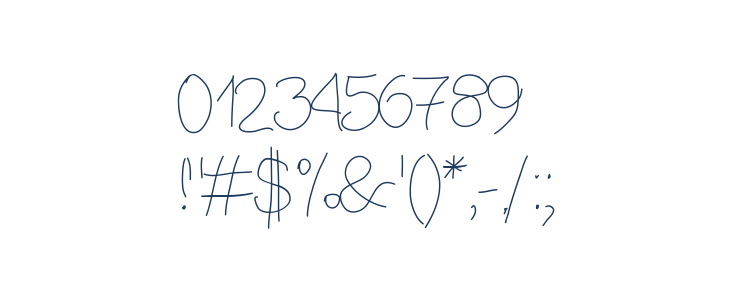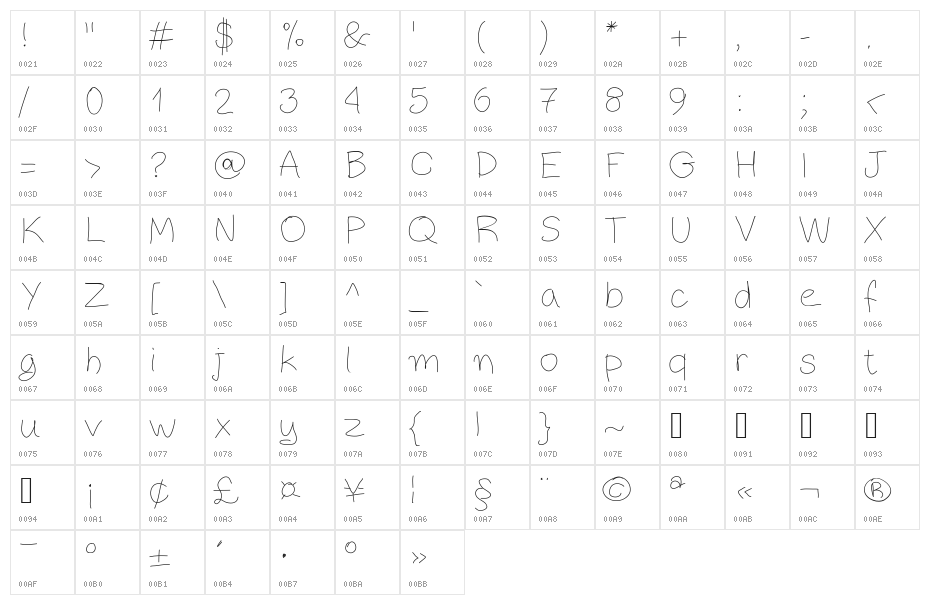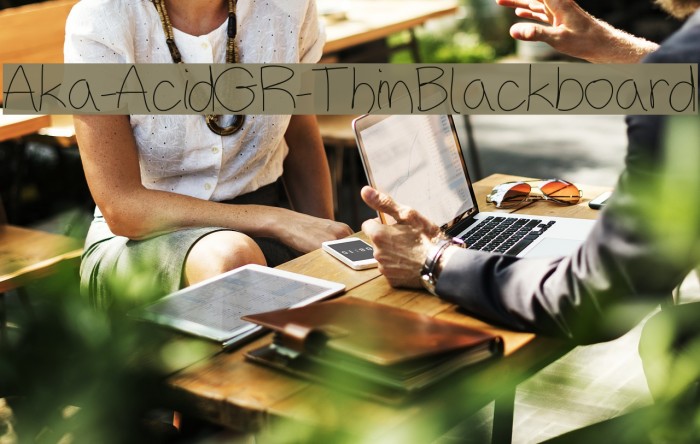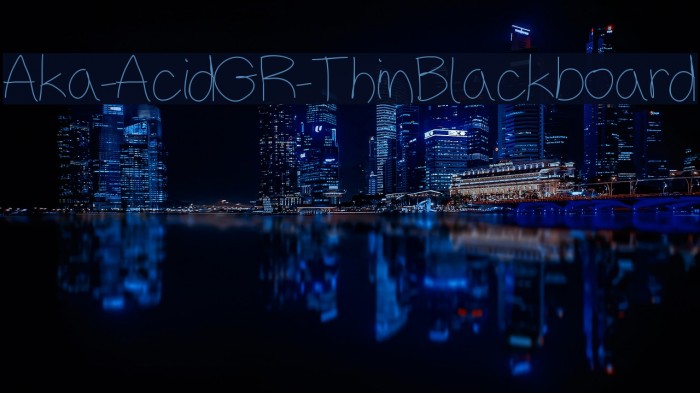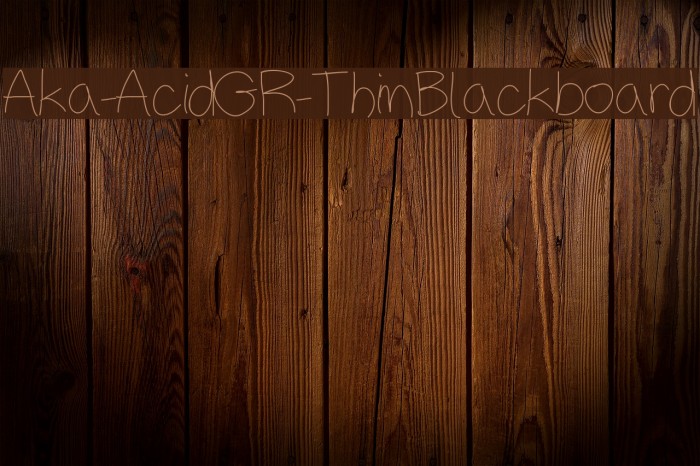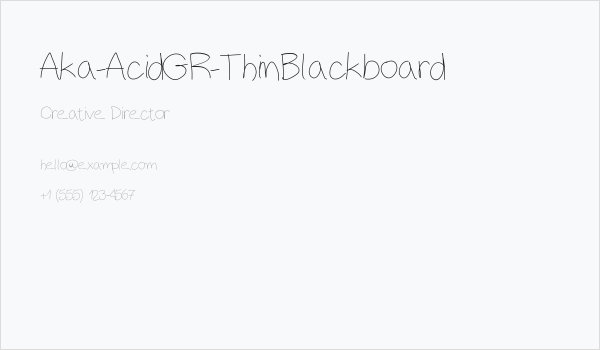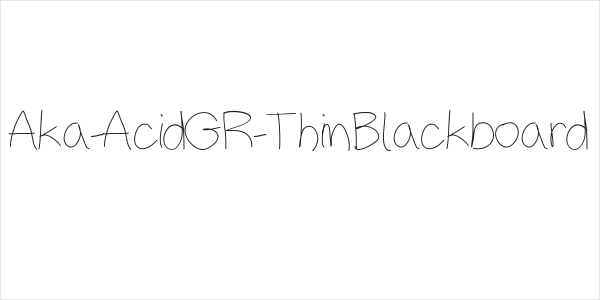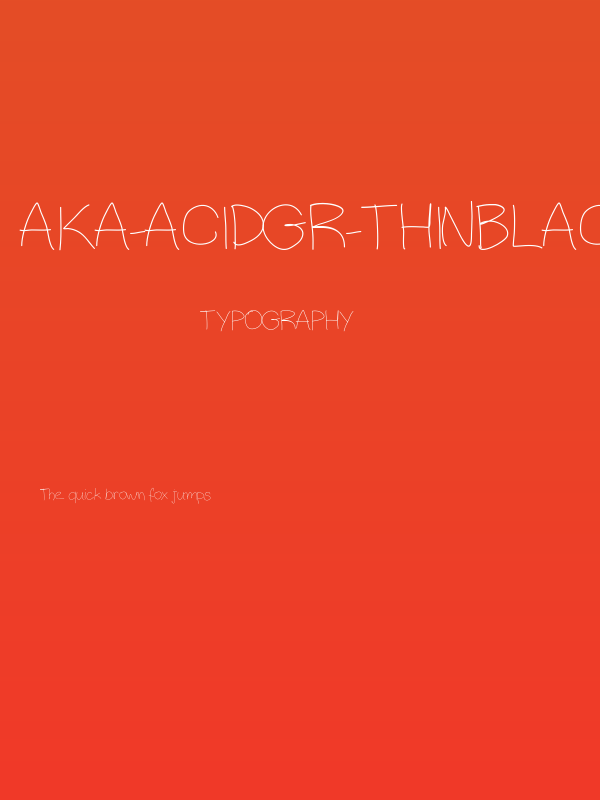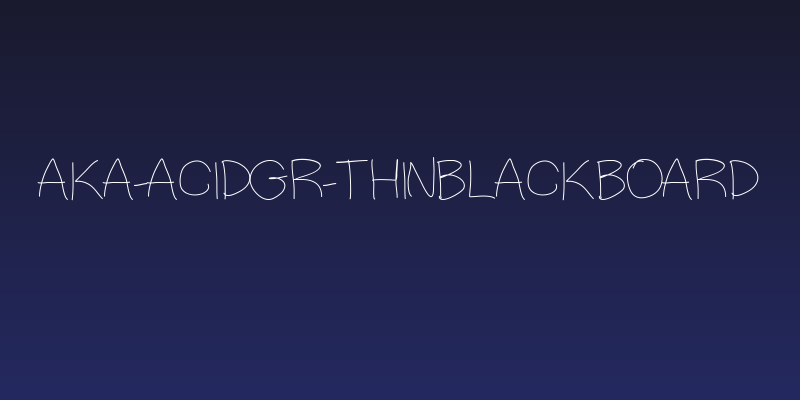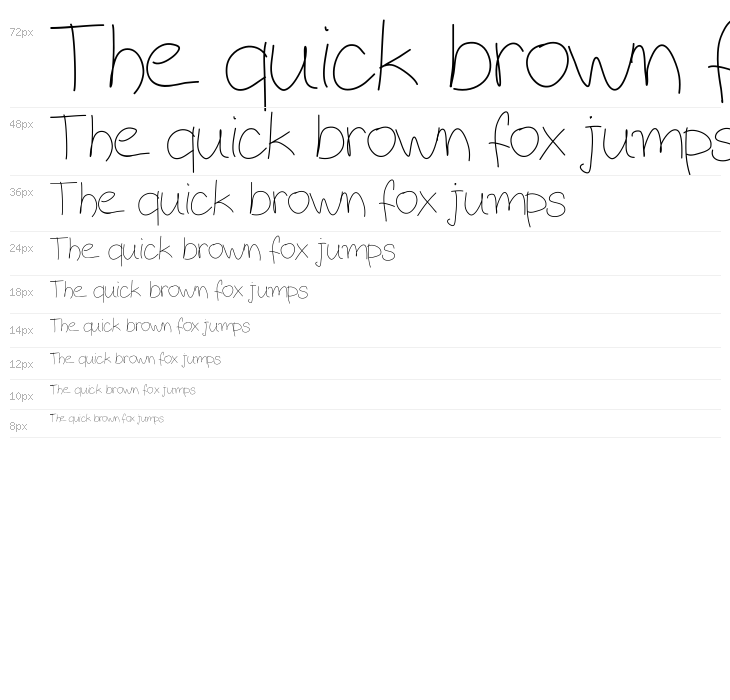
Aka-AcidGR-ThinBlackboard Font
Aka-AcidGR-ThinBlackboard Description
This font features a playful and informal handwritten style, characterized by thin, slightly irregular strokes that give it a casual and approachable feel. The letters are tall and narrow, with a consistent height across both uppercase and lowercase characters. The overall design is clean and legible, making it suitable for a variety of creative projects. The numerals and special characters maintain the same whimsical style, ensuring a cohesive look throughout. This font's unique charm lies in its simplicity and the subtle variations in line thickness, which add a touch of personality without compromising readability.
| Proposed Projects | Ideal for children's books, greeting cards, informal invitations, and creative branding. |